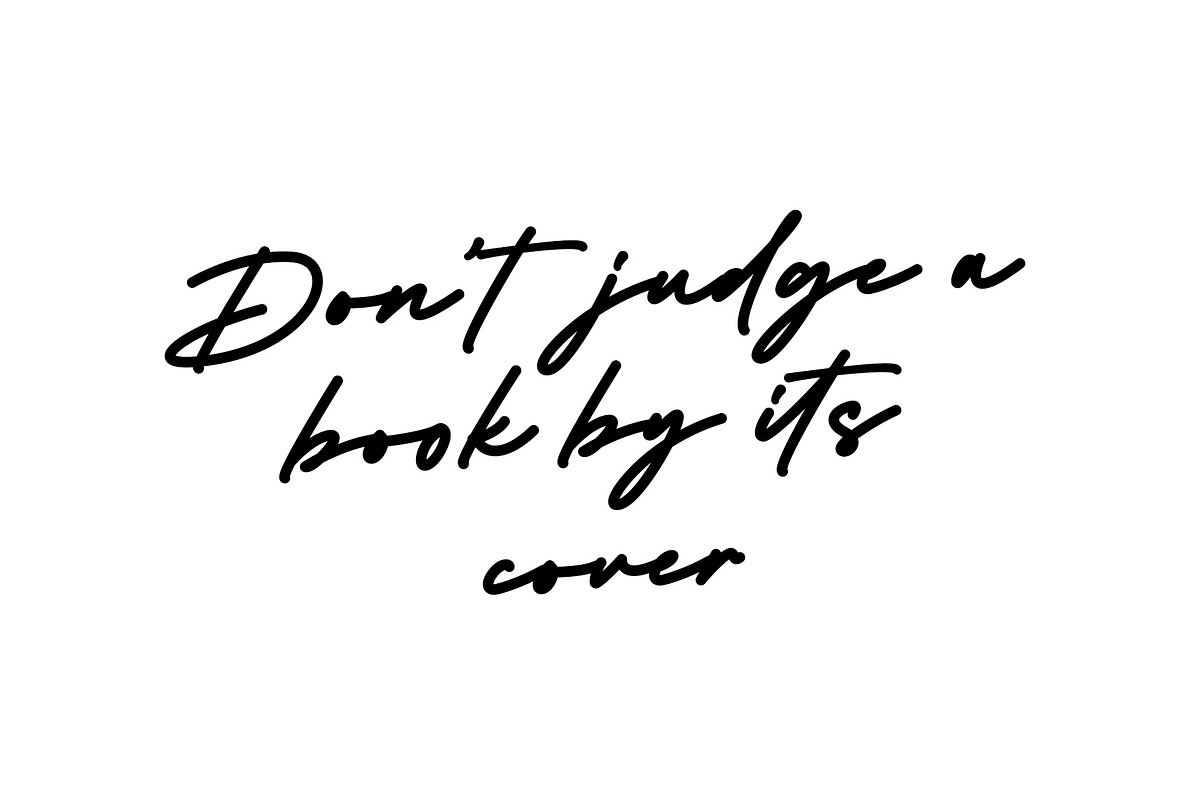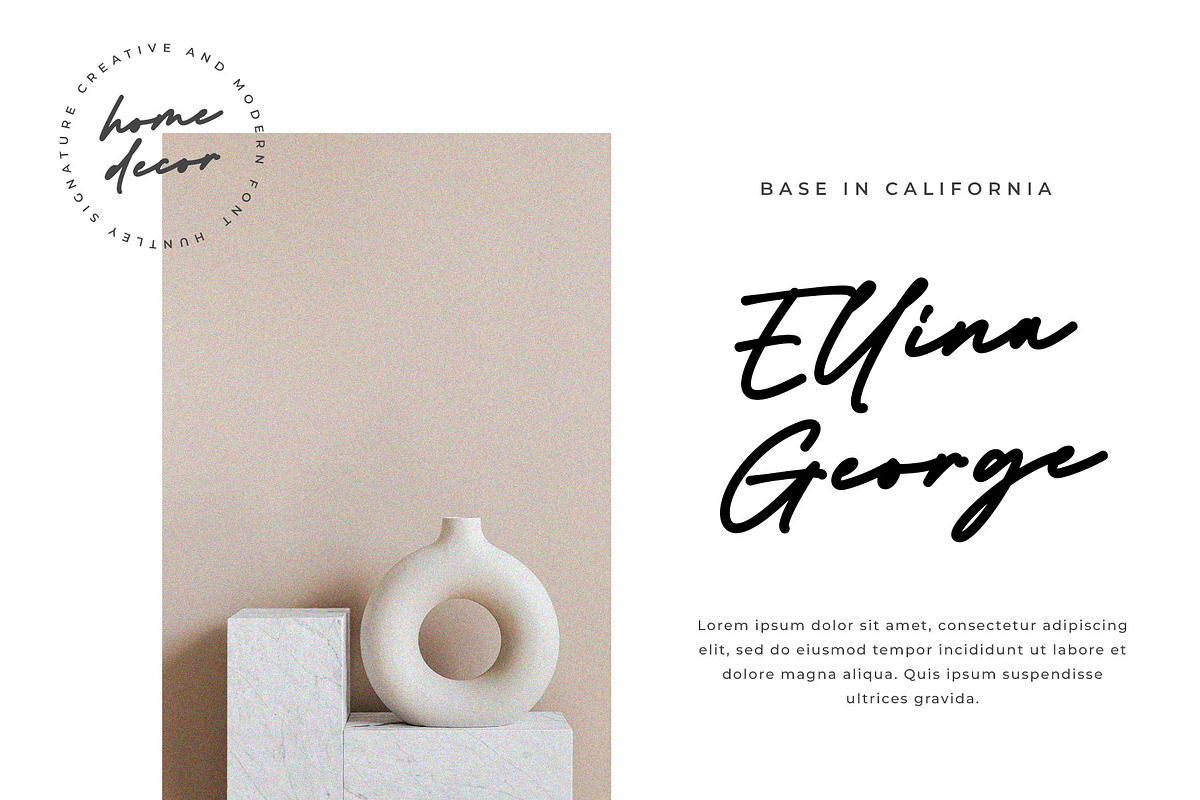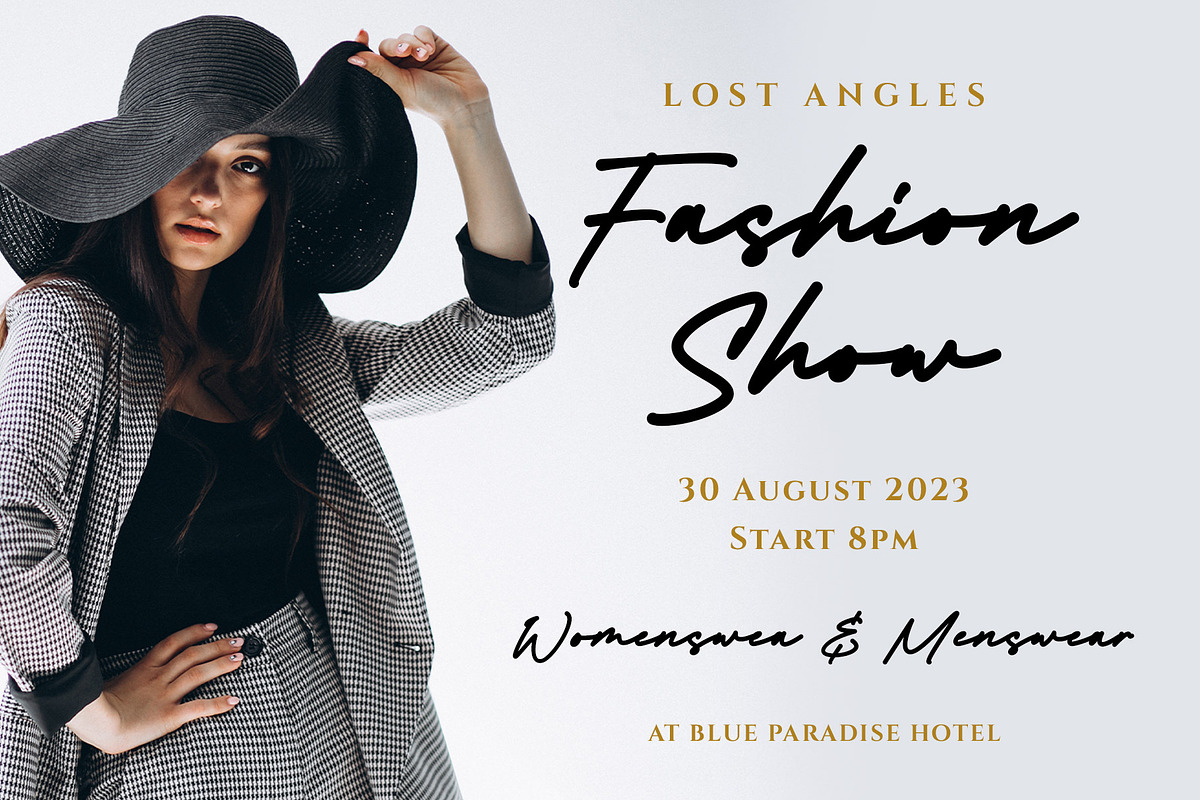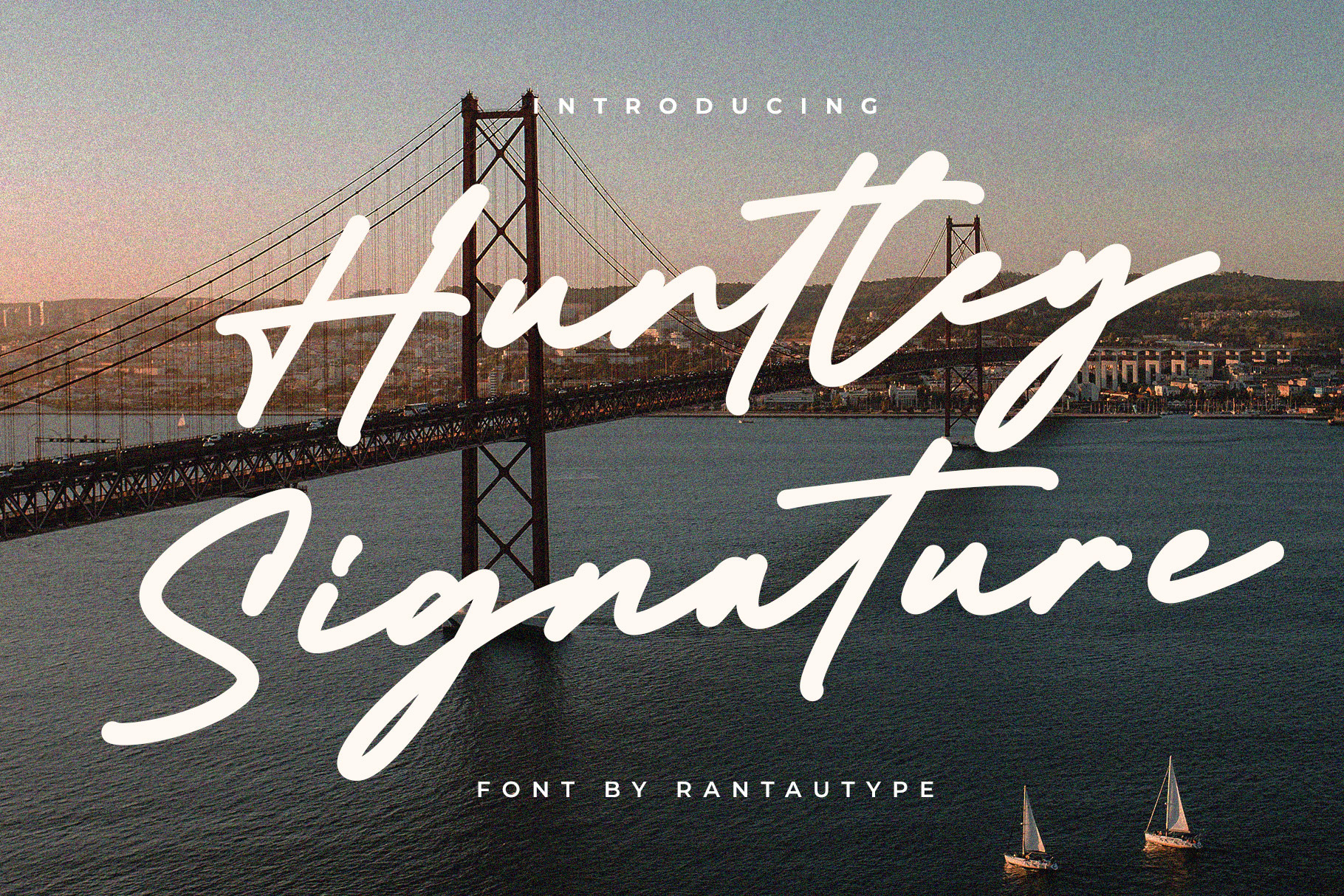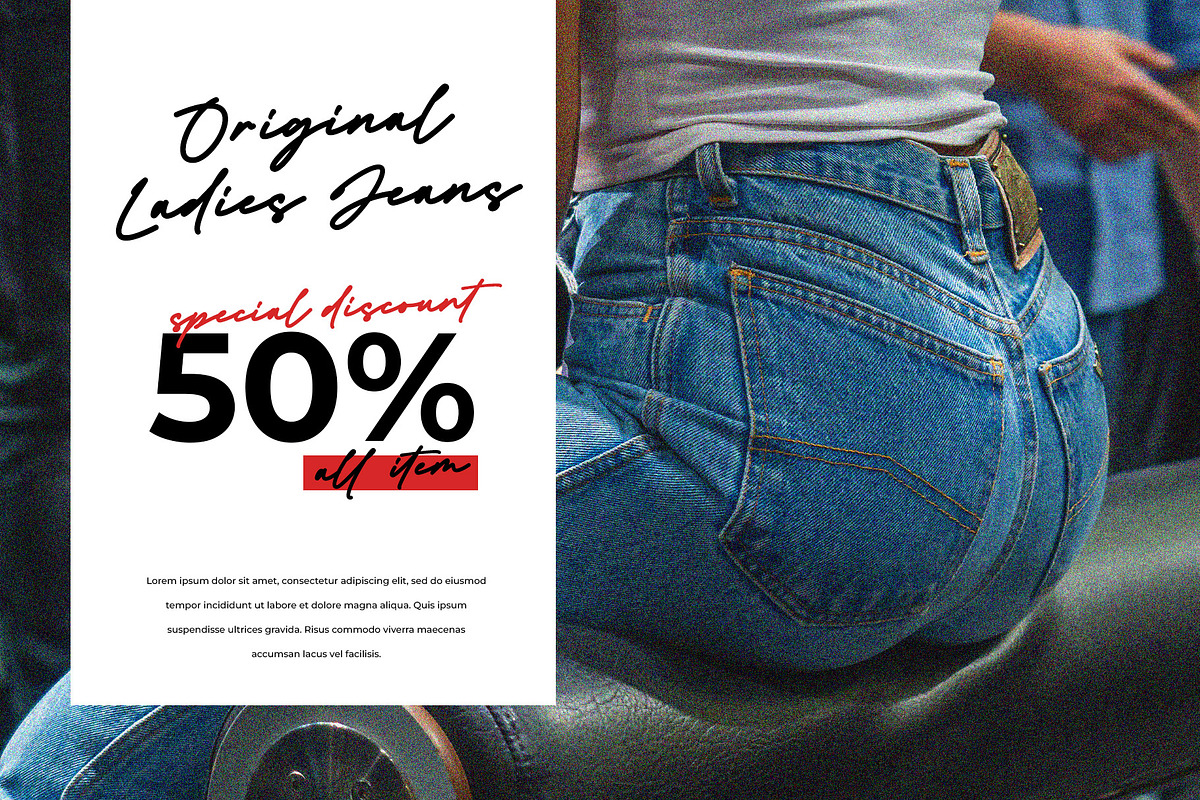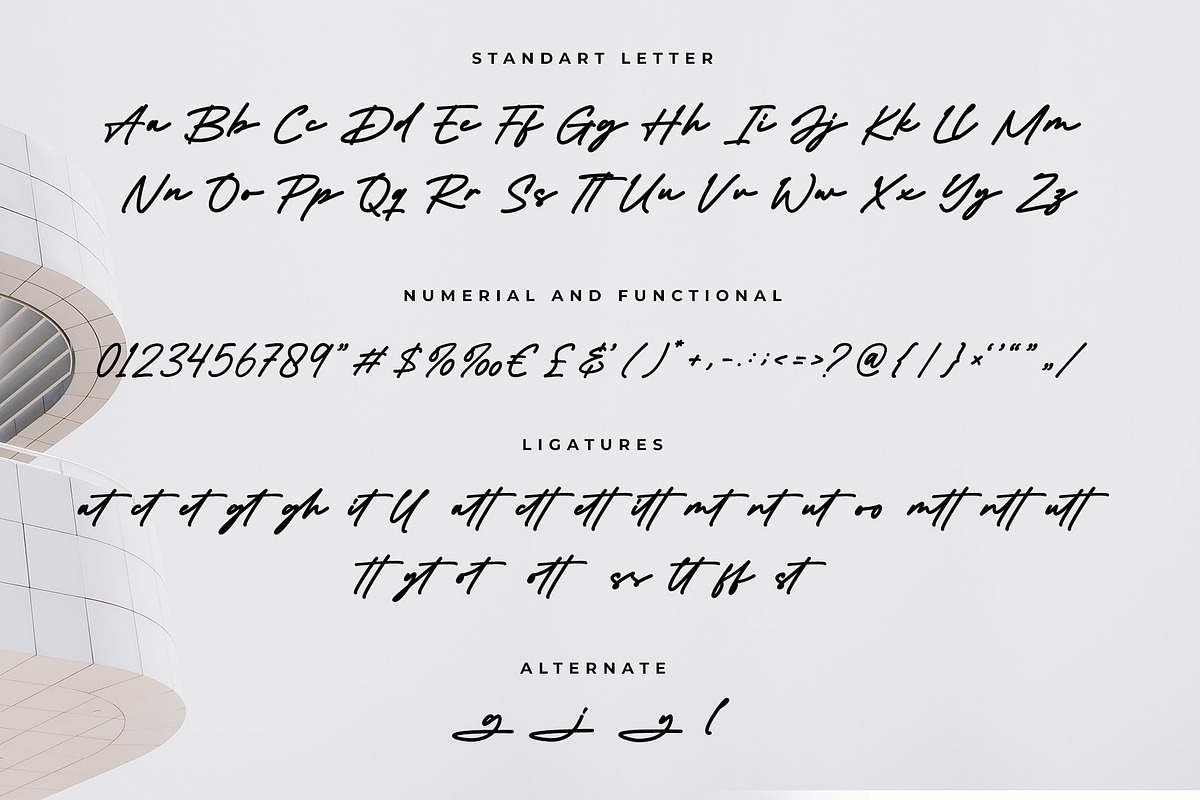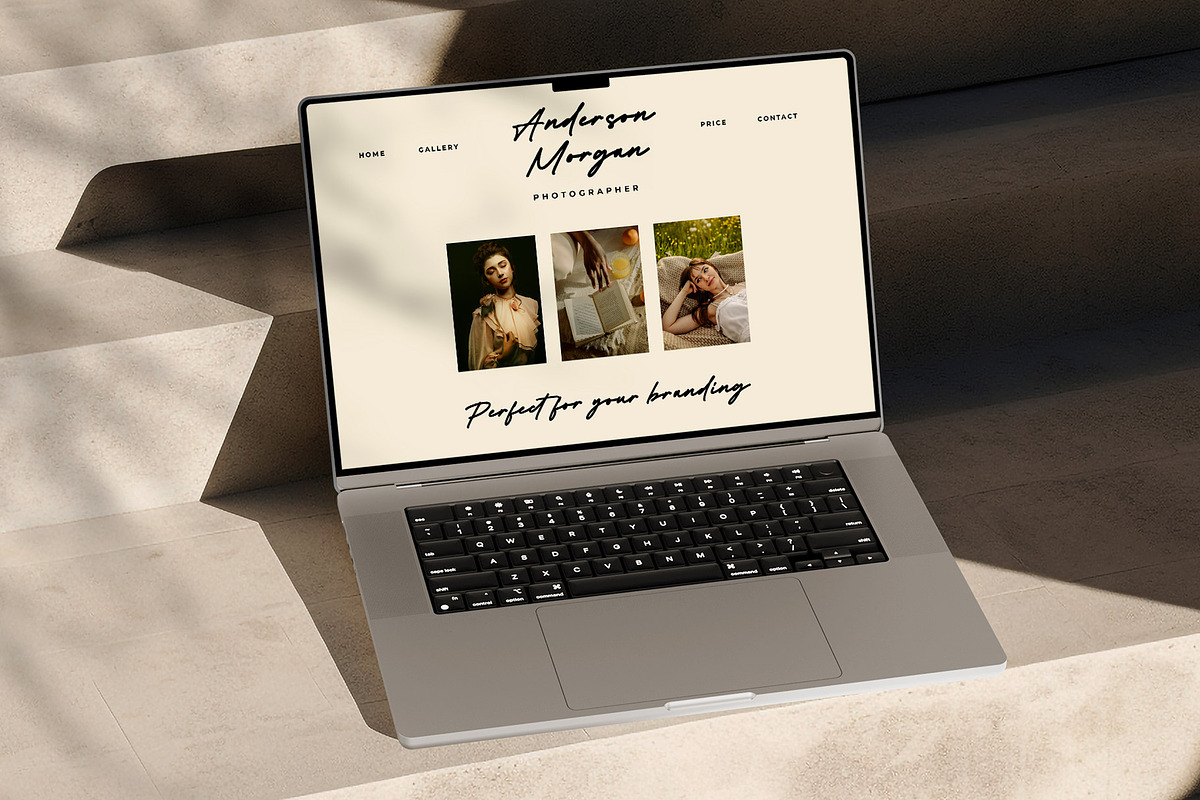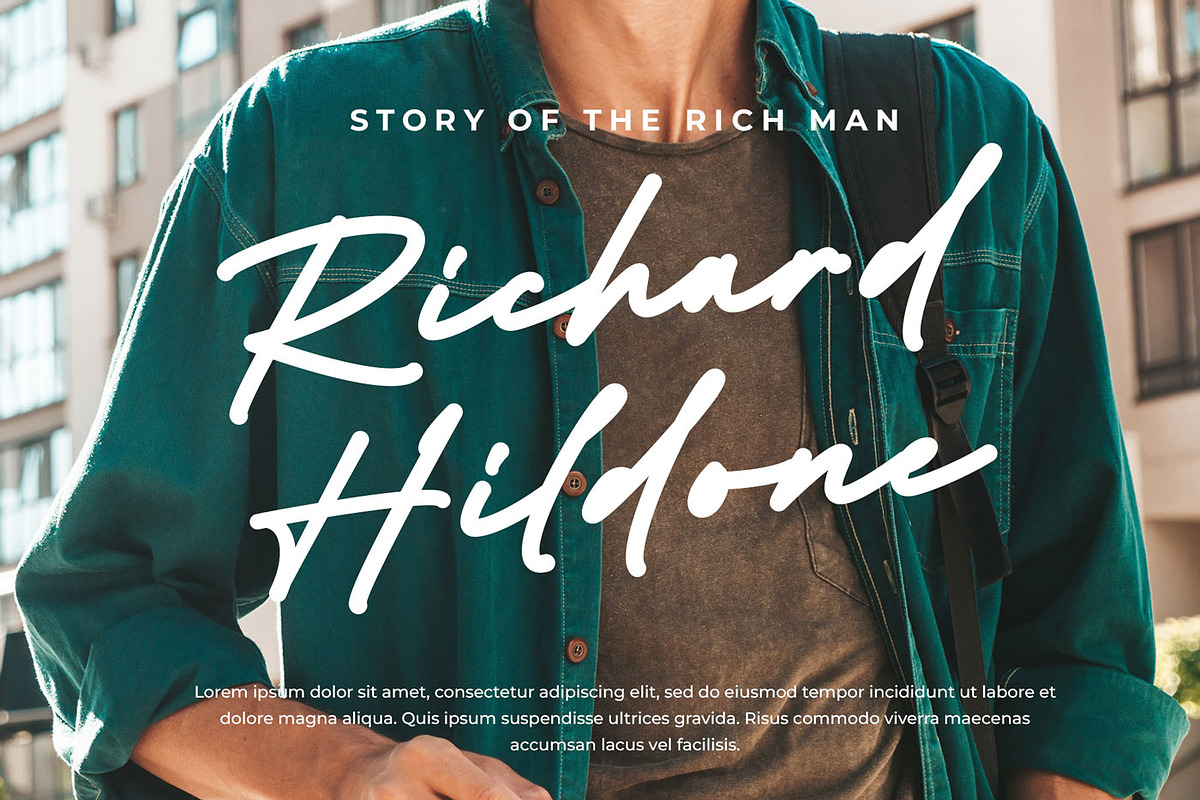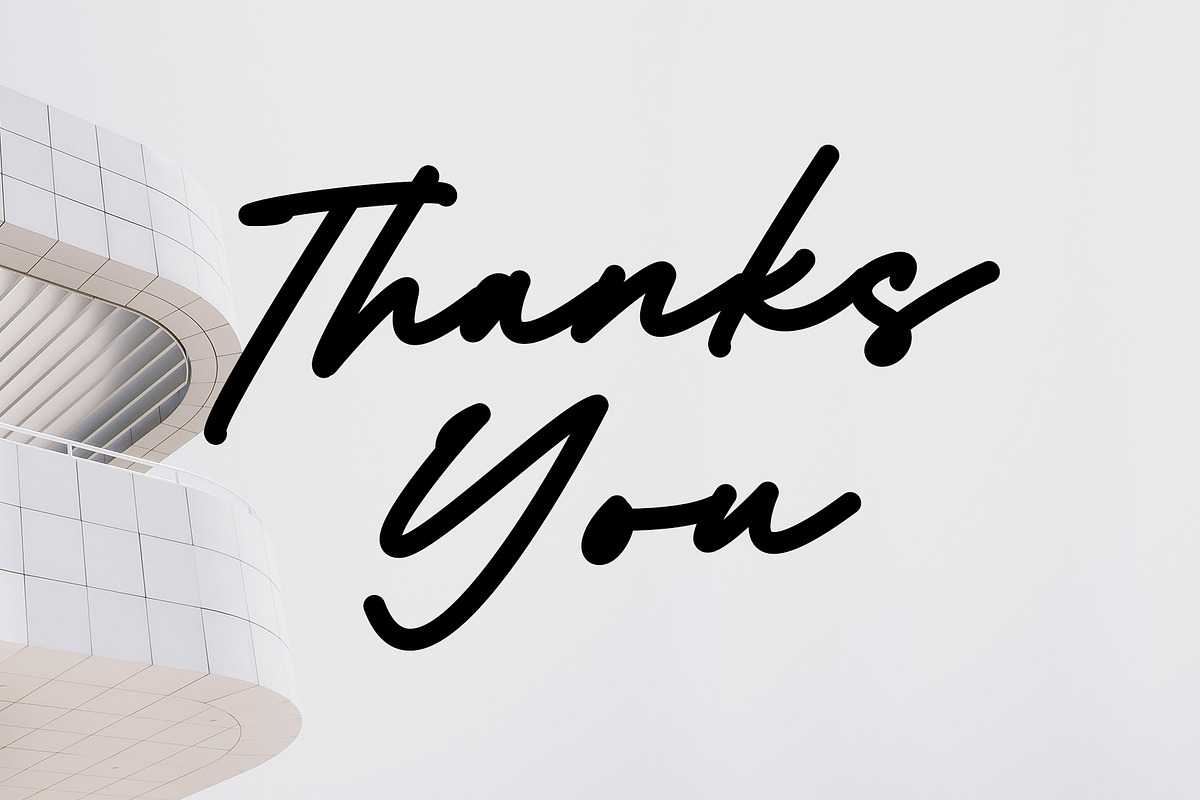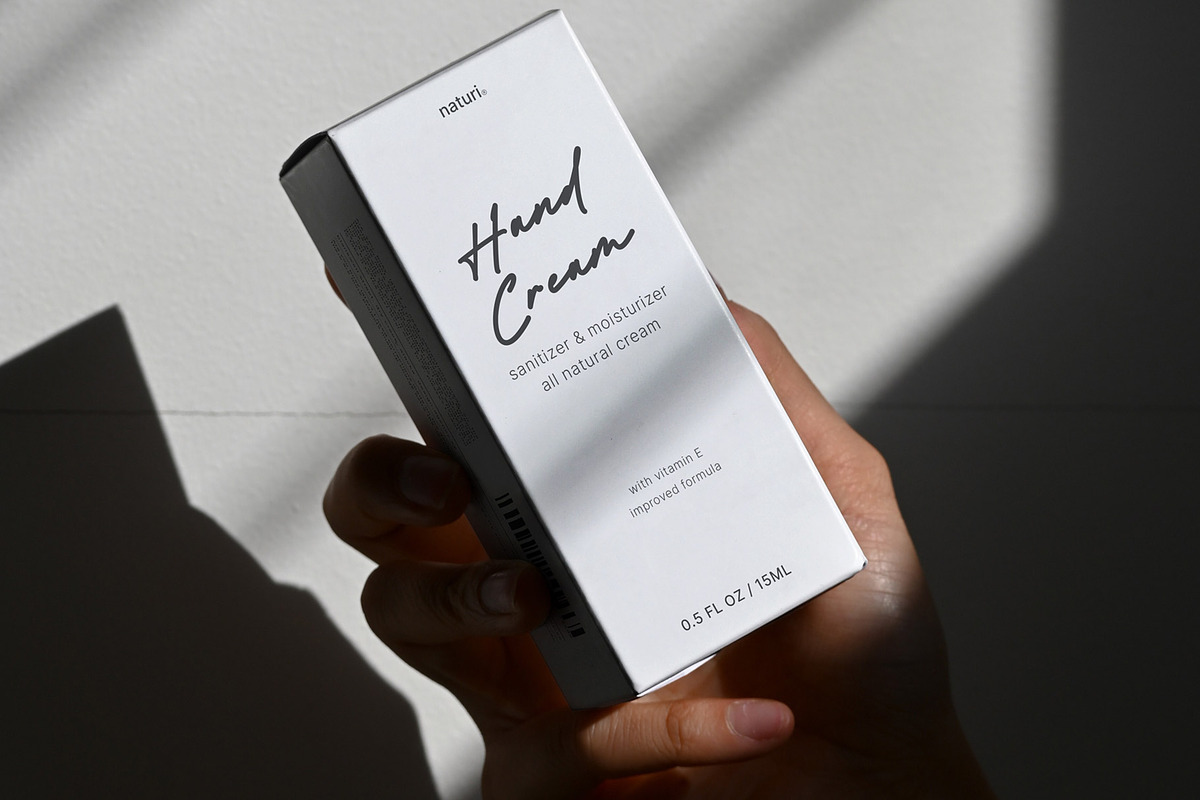
Huntley Signature Font
Hi Ladies and Gentleman ! Proudly present handwritten font “Huntley Signature” for you business.
Huntley Signature - modern and bold handwritten style which can be interpreted professional. we keep this font looks elegant, luxury, premium, modern, readable, stylish, catchy and easy to use.
Huntley Signature - is the great choice for watermark on photography, branding, wedding event, signature or signature logo design, quotes, album cover, magazine, business card and many other design project. Huntley Signature here to make your work to high level!!!
- Standar character A-Z and a-z
- Ligature and Alternate
- Multilinggual support